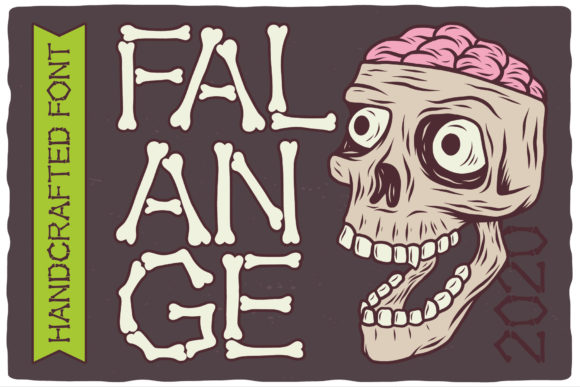
Falange Font: The Ultimate Choice for Spooky Halloween Designs
Are you looking for a font that can add a touch of eeriness and uniqueness to your Halloween party designs? Look no further than the Falange Font. This incredibly unique and creepy looking display font is perfect for creating spooky and eye-catching designs that will leave a lasting impression on your guests.
What is Falange Font?
Falange Font is a display font designed to make a statement. Its unique and creepy design makes it perfect for use in scary Halloween party designs, horror movie posters, and other spooky-themed projects. The font is characterized by its bold and edgy letters, which are sure to grab attention and evoke a sense of eeriness.
Why Choose Falange Font for Your Halloween Party?
There are many reasons why Falange Font is the perfect choice for your Halloween party designs. Here are just a few:
- Unique Design: Falange Font has a unique and creepy design that will set your party designs apart from the rest.
- Eeriness Factor: The font’s bold and edgy letters are sure to evoke a sense of eeriness and spookiness, perfect for a Halloween party.
- Attention-Grabbing: The font’s bold design ensures that your party designs will grab attention and leave a lasting impression on your guests.
- Versatility: Falange Font can be used in a variety of design projects, from party invitations to posters and more.
How to Use Falange Font in Your Halloween Party Designs
Using Falange Font in your Halloween party designs is easy. Here are a few tips to get you started:
- Pair it with Other Fonts: Pair Falange Font with other fonts to create a unique and eye-catching design.
- Use it for Headlines: Use Falange Font for headlines and titles to grab attention and add a touch of eeriness to your designs.
- Add it to Your Invitations: Add Falange Font to your party invitations to set the tone for a spooky and fun party.
- Experiment with Colors: Experiment with different colors to find the perfect combination that complements Falange Font.
The Benefits of Using Falange Font in Your Designs
There are many benefits to using Falange Font in your designs. Here are just a few:
- Stand Out from the Crowd: Falange Font is a unique and eye-catching font that will help your designs stand out from the crowd.
- Professional Look: The font’s bold and edgy design gives your designs a professional and polished look.
- Easy to Read: Despite its bold design, Falange Font is easy to read, making it perfect for use in a variety of design projects.
- Versatility: Falange Font can be used in a variety of design projects, from party invitations to posters and more.
Falange Font is an incredibly unique and creepy looking display font that is perfect for creating spooky and eye-catching designs for your Halloween party. Its bold and edgy design makes it perfect for use in a variety of design projects, from party invitations to posters and more. With its versatility, attention-grabbing design, and eeriness factor, Falange Font is the ultimate choice for your Halloween party designs.
- What is Falange Font? Falange Font is a display font designed to make a statement. Its unique and creepy design makes it perfect for use in scary Halloween party designs, horror movie posters, and other spooky-themed projects.
- Is Falange Font Easy to Read? Yes, despite its bold design, Falange Font is easy to read, making it perfect for use in a variety of design projects.